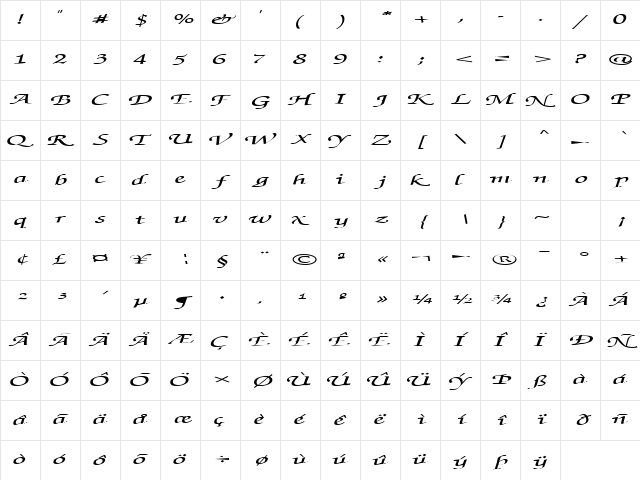
Complete ChristianChicText65 Regular glyph index. Displaying only characters natively supported by ChristianChicText65 Regular font.
ChristianChicText65 is a composed and adaptable typeface that performs quietly and consistently across a wide range of design contexts.